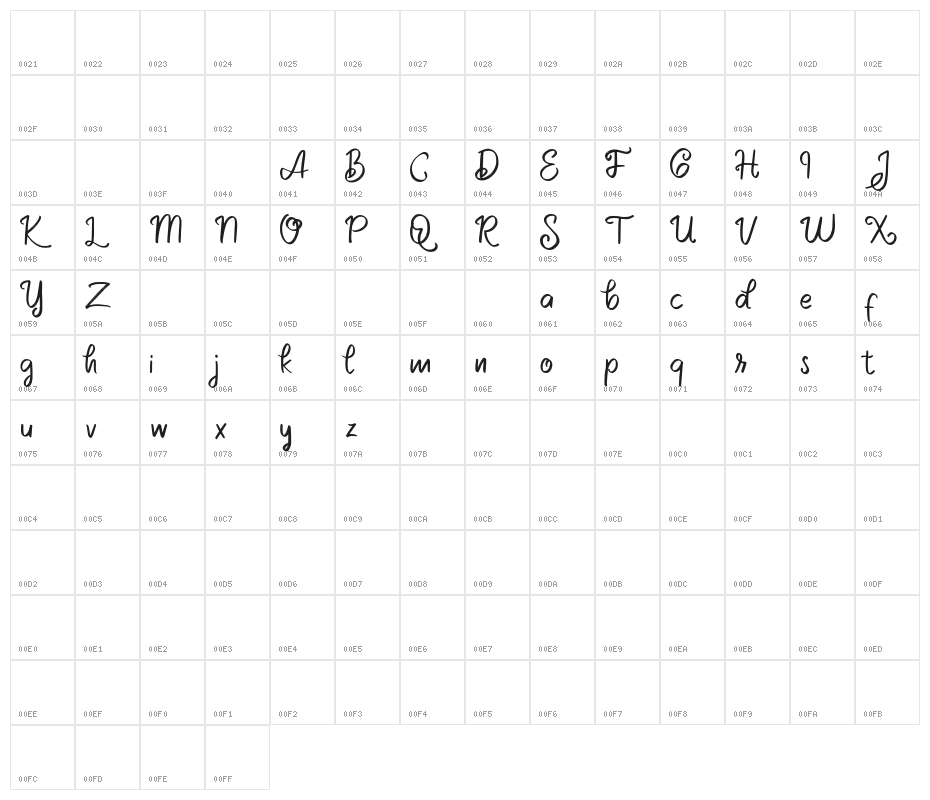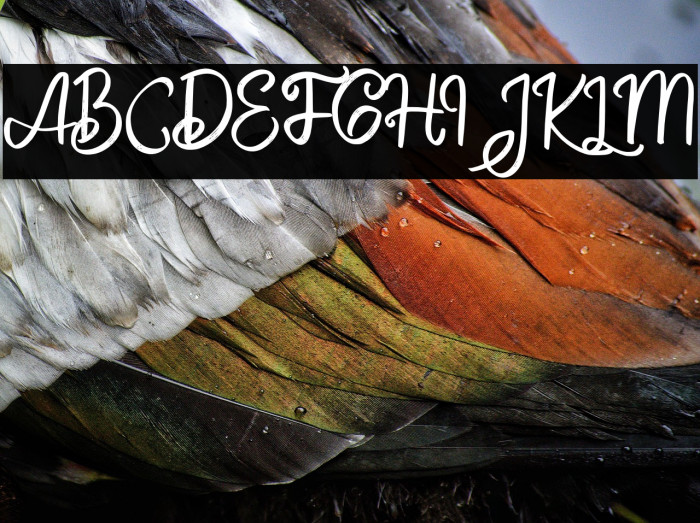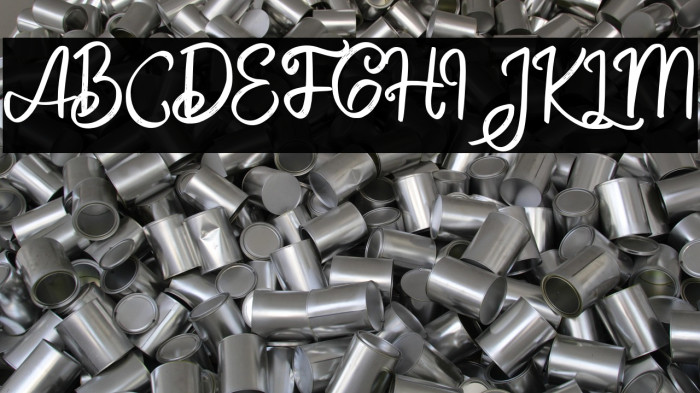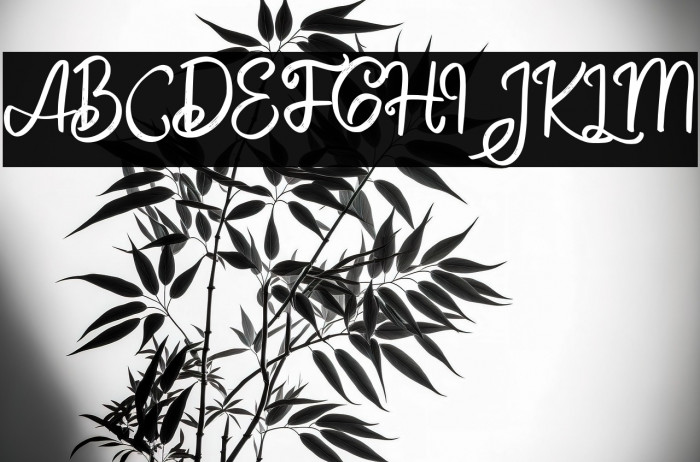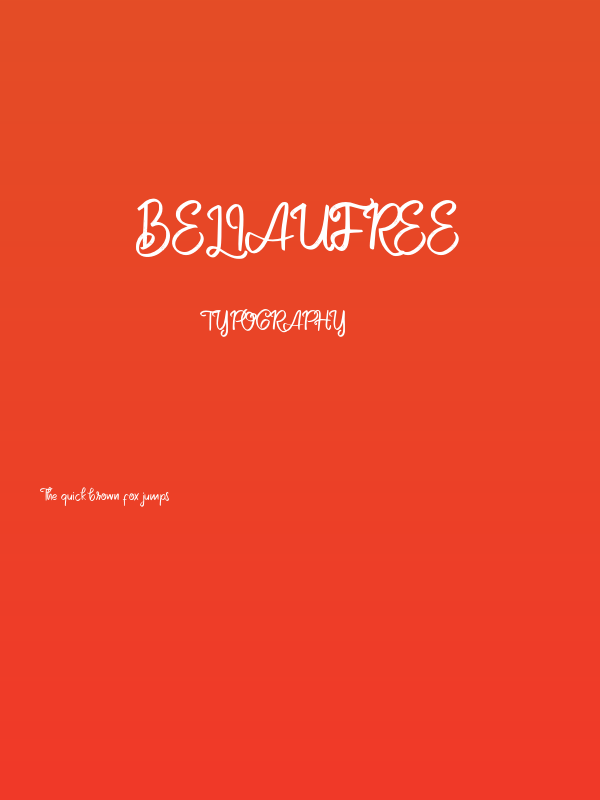
BeliauFREE Font
BeliauFREE Description
This font features a playful and whimsical script style with a hand-drawn appearance. The uppercase letters are characterized by their flowing, interconnected strokes, giving them a sense of movement and elegance. The lowercase letters maintain a similar style, with some letters featuring loops and curls that add to the font's charm. The overall design is bold and expressive, making it suitable for creative and artistic projects. The characters are well-spaced, ensuring readability while maintaining a unique aesthetic.
| Proposed Projects | Ideal for greeting cards, invitations, branding, and creative posters. |